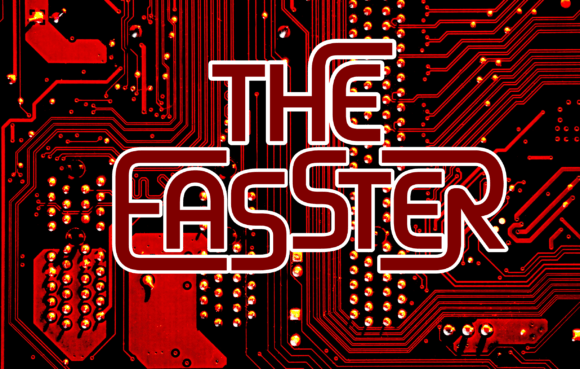
The Thrill of Discovery: Unleashing the Power of Explore Everyday Font
I’ll never forget the rush of working on a high-energy project – a sports car racing poster that needed to scream speed and power. As I scoured font libraries, one gem caught my eye: Explore Everyday. This authentic display font was tailor-made for projects like mine, and I was eager to dive in and explore its capabilities.
- ✅ Explore Everyday’s bold, dynamic aesthetic is perfect for making a statement
- ✅ Tight kerning creates a sleek, cohesive look at larger sizes
- ✅ Highly versatile – works well for movie posters, sports, racing designs, and more
While Explore Everyday is an amazing font, there are a few things to keep in mind:
- ⚠️ Due to overlapping glyphs, alternates must be selected manually in the Outlines version from the Glyphs panel
- 🤔 Kerning is extremely tight, so it’s best displayed at larger sizes
The Story Behind Explore Everyday: Designer Inspiration
Explore Everyday was crafted with the thrill of speed and competition in mind. Its designer aimed to create a font that would evoke the rush of adrenaline and the sense of limitless possibility. With Explore Everyday, you can tap into that same energy and inject your designs with a dynamic, high-octane personality.
| Author | AnomiEka |
Q: What makes Explore Everyday unique?
A: Explore Everyday’s bold, overlapping glyphs and tight kerning create a distinctive, high-energy look that’s perfect for designs related to speed and power.
Q: Can I use Explore Everyday for body text?
A: While Explore Everyday is an amazing display font, its tight kerning and bold aesthetic make it less suitable for body text. It’s best used for headlines, titles, or emphasis.
Q: Is Explore Everyday suitable for digital use?
A: Absolutely! Explore Everyday can be used for both print and digital projects. Its clear, bold design ensures readability even at smaller sizes.